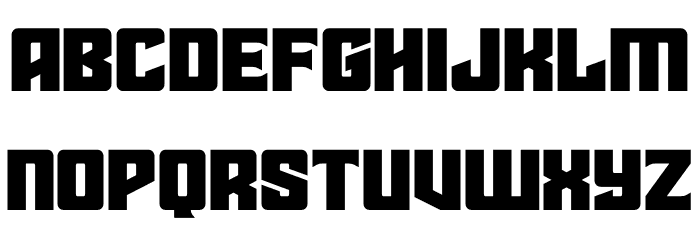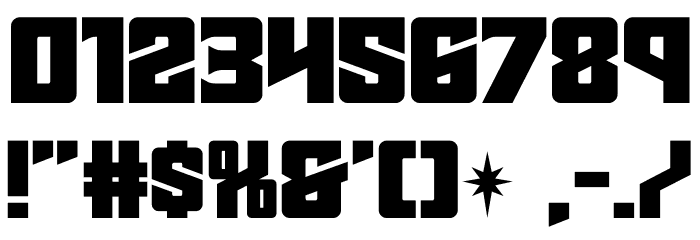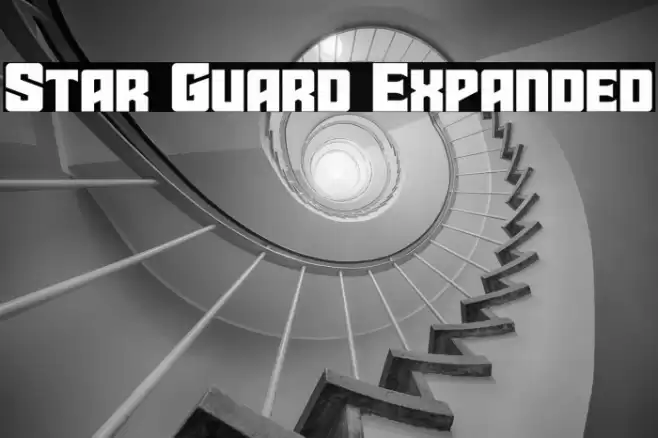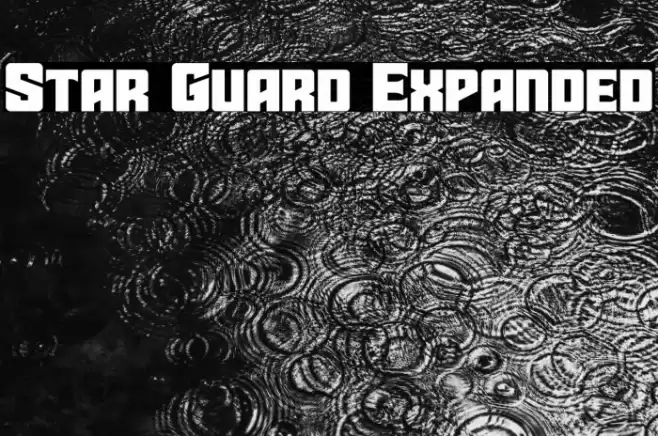
Star Guard Expanded Font
This font features a bold and striking design with a futuristic and geometric style. The characters are blocky and angular, with sharp edges and a strong presence. The uppercase and lowercase letters maintain a consistent width, creating a uniform appearance. The numbers and special characters follow the same design principles, ensuring cohesion across all elements. The font's expanded width gives it a commanding look, making it ideal for attention-grabbing headlines or titles. Its unique style is reminiscent of sci-fi themes, adding a modern and dynamic touch to any project.
A bold, geometric font with a futuristic and expanded design.
- Proposed Projects: Ideal for sci-fi themed posters, video game titles, movie credits, and branding for tech companies.
- Width: Expanded
- Overall Style: Futuristic, Geometric